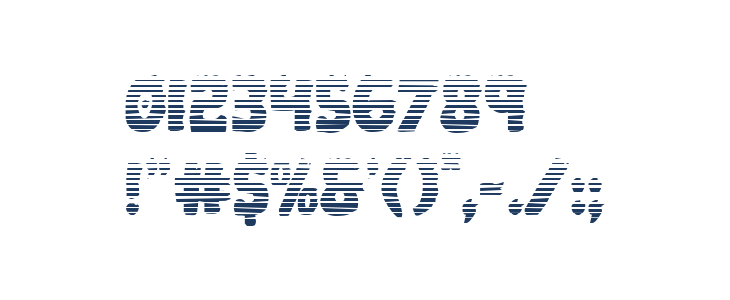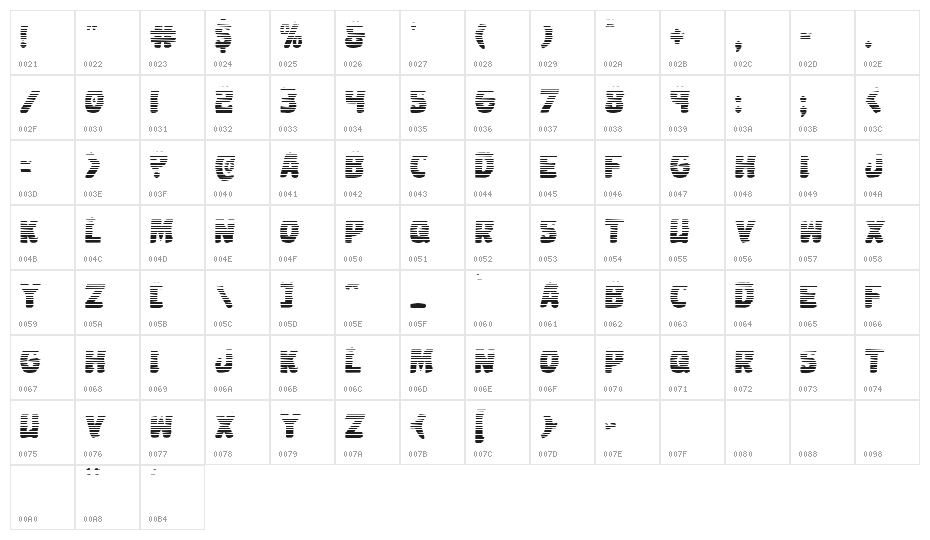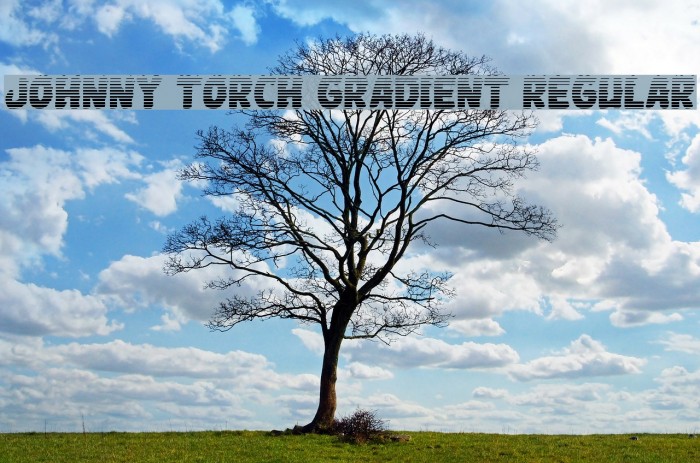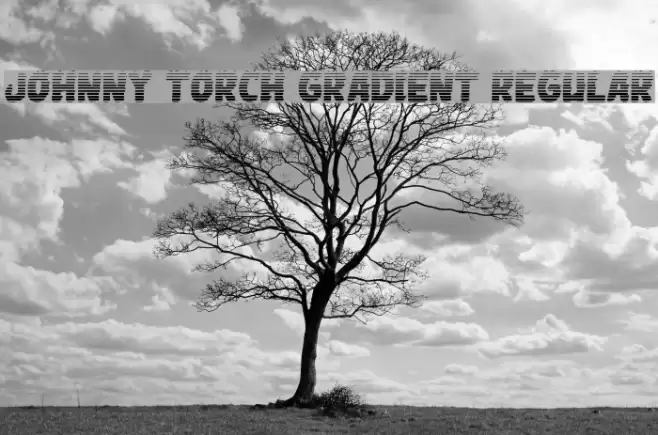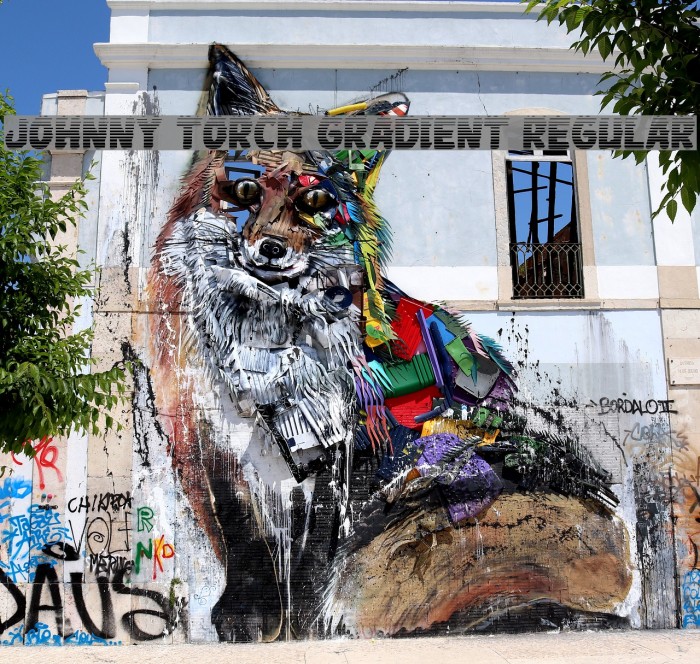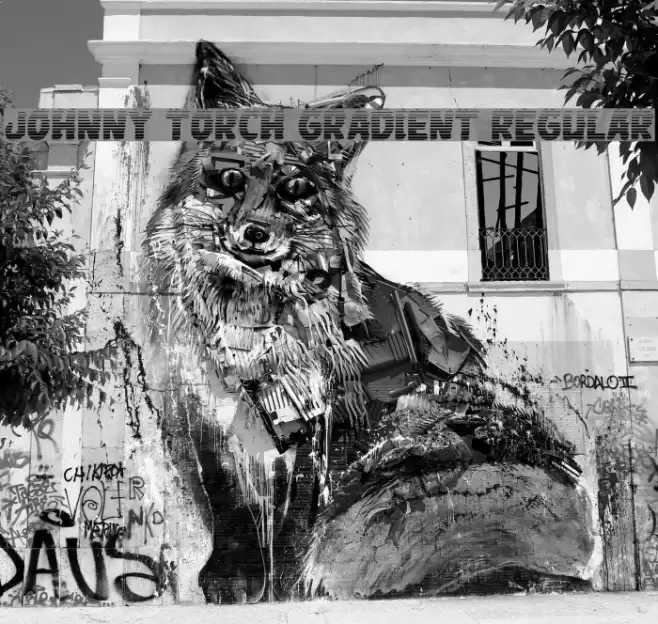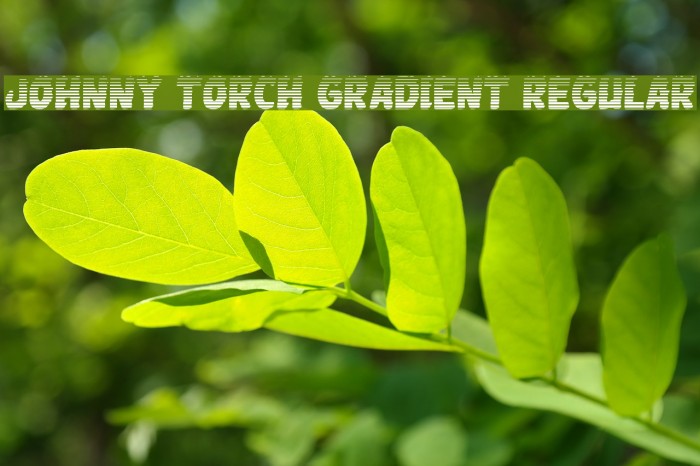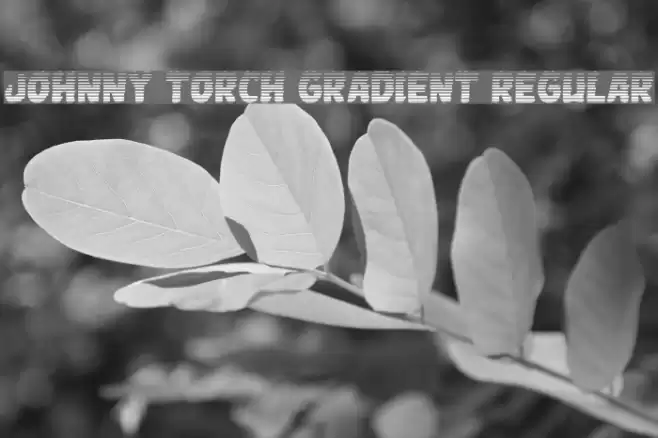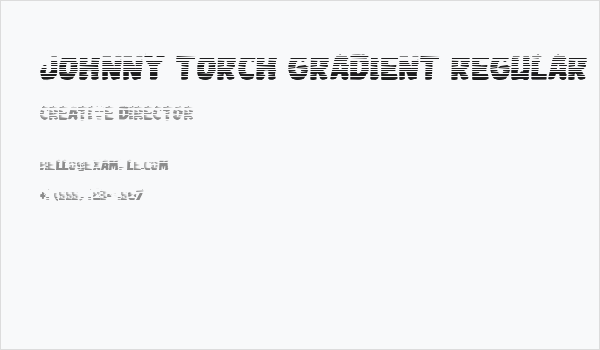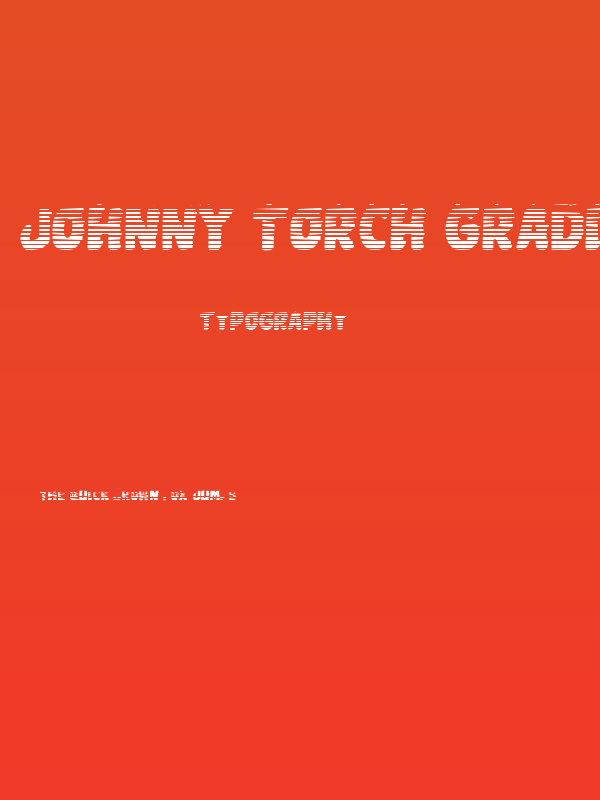
Johnny Torch Gradient Regular Font
Johnny Torch Gradient Regular Description
This font features a bold, decorative style with a unique gradient effect created by horizontal lines running through each character. The uppercase letters are consistent in height and width, providing a uniform appearance. The numbers and special characters maintain this striped pattern, adding a modern and dynamic touch. The font's design is eye-catching and suitable for projects that require a strong visual impact. Its distinctive style makes it ideal for creative and artistic applications, where the text needs to stand out and capture attention.
| Proposed Projects | Ideal for posters, logos, headlines, and branding materials that require a bold and artistic touch. |